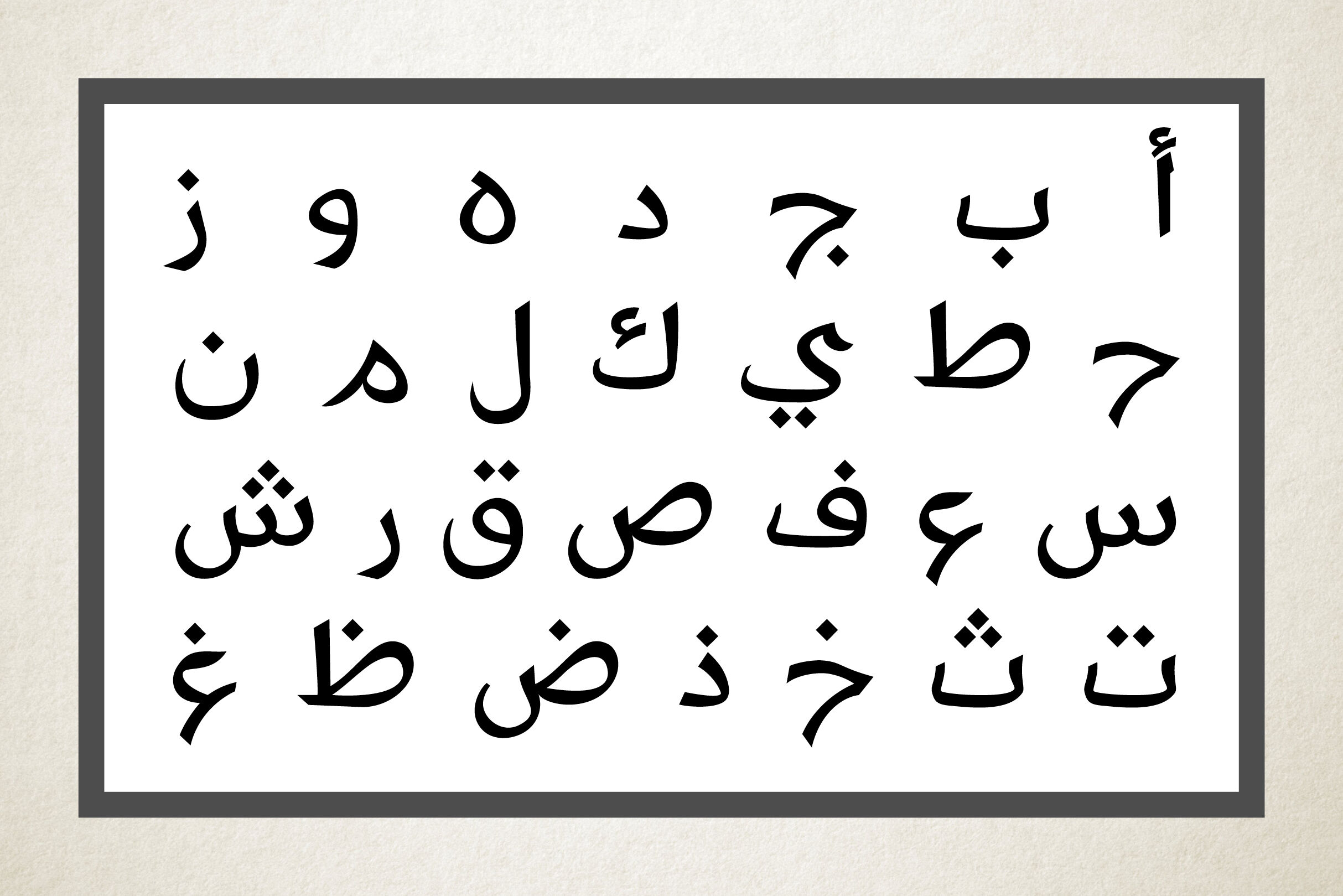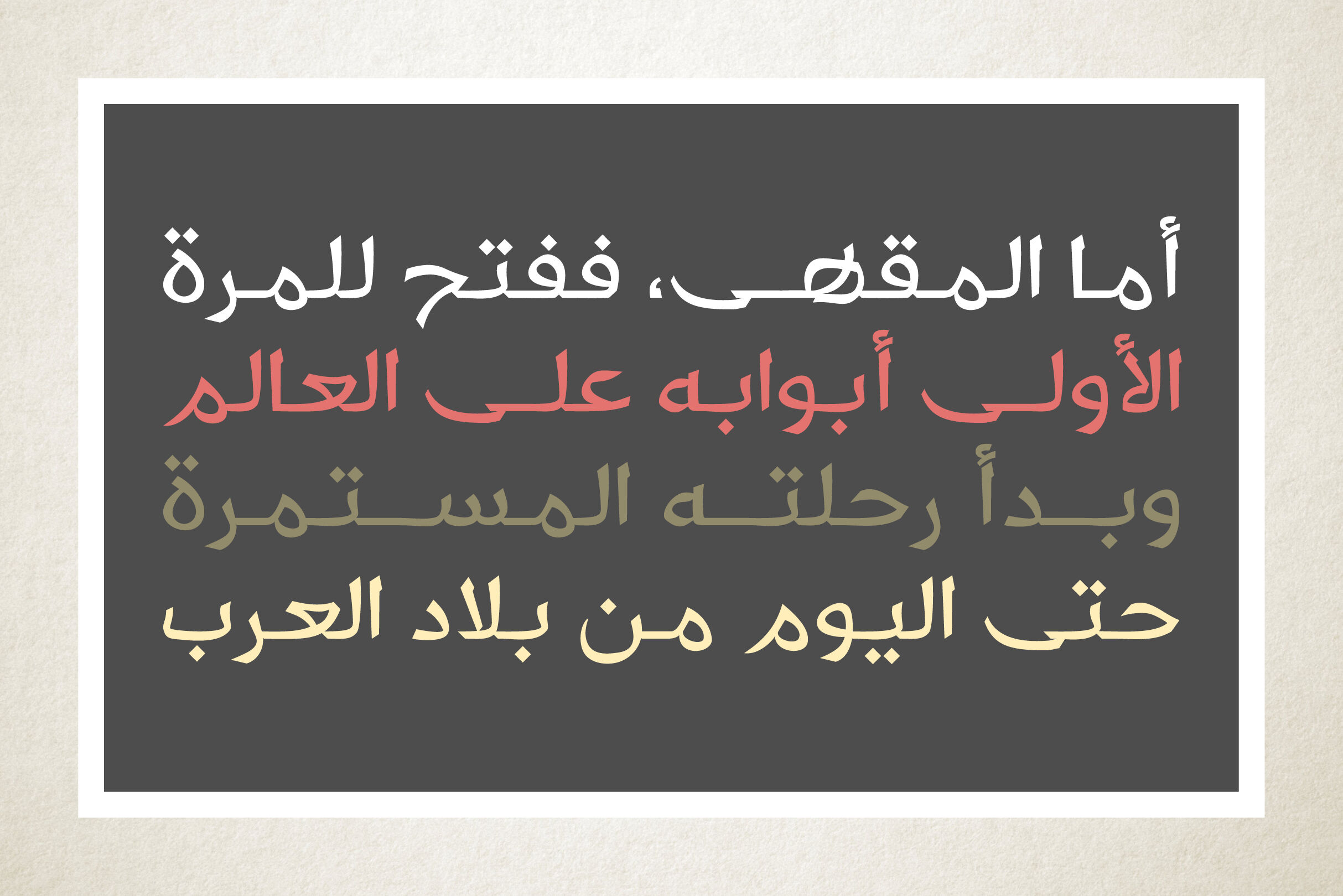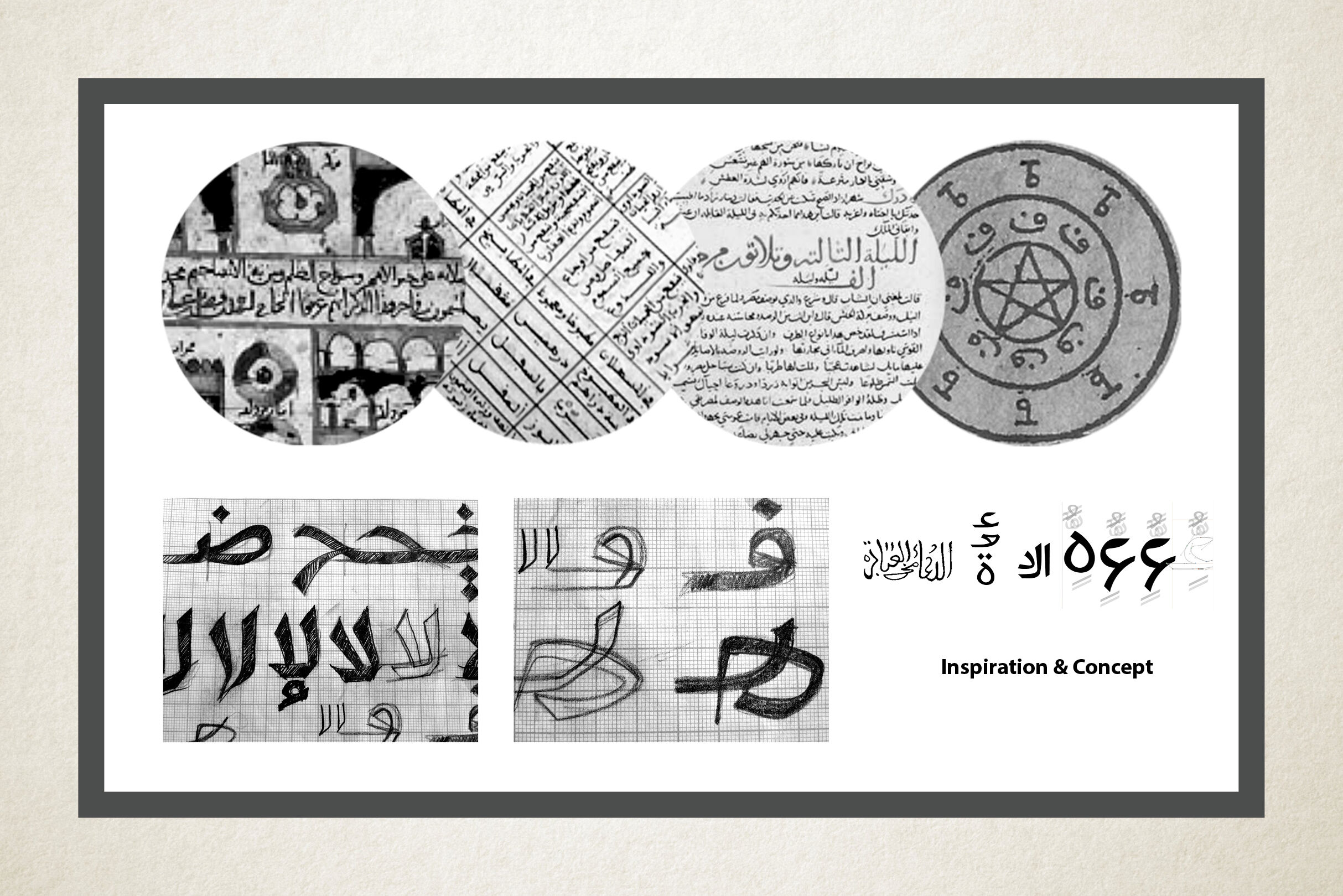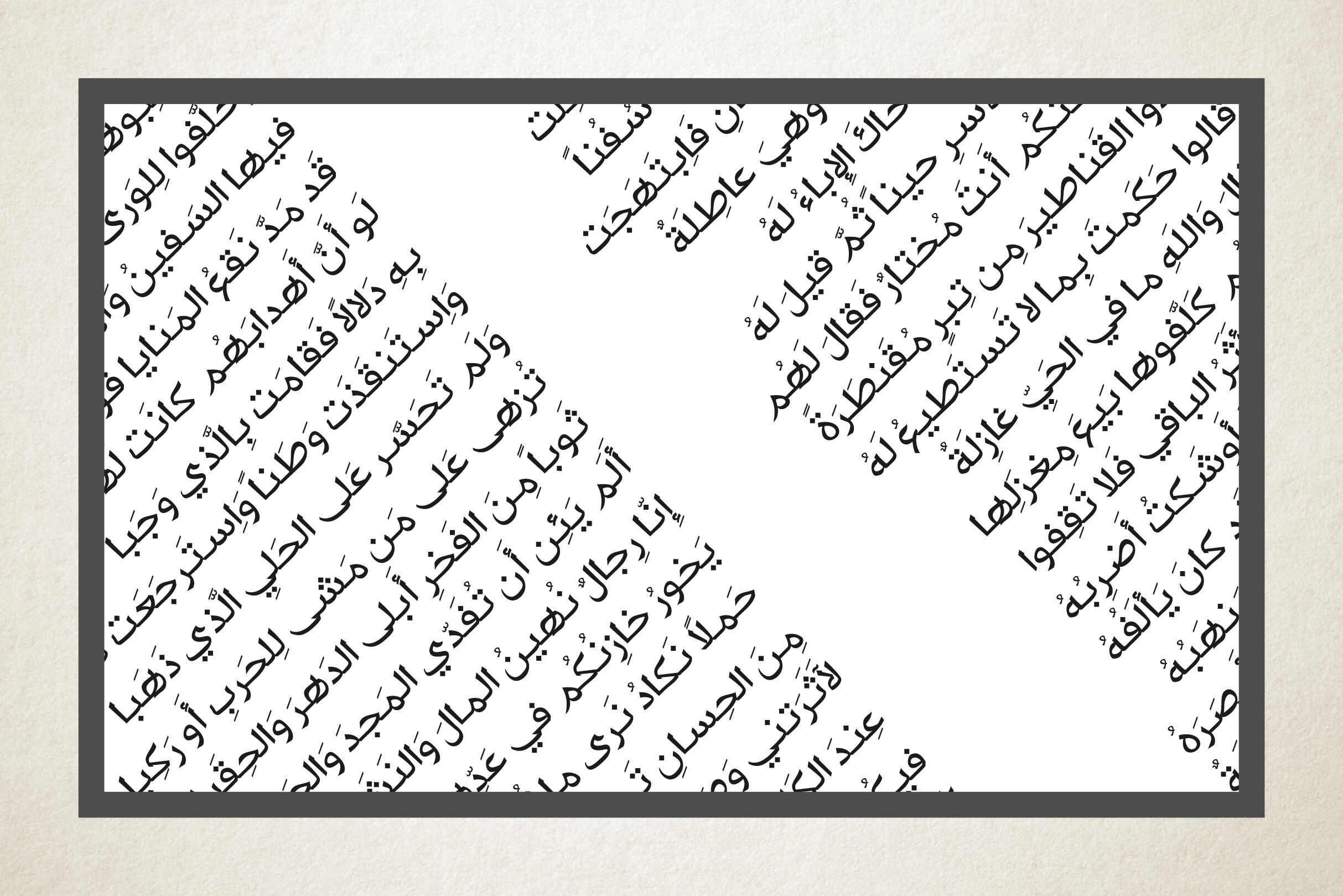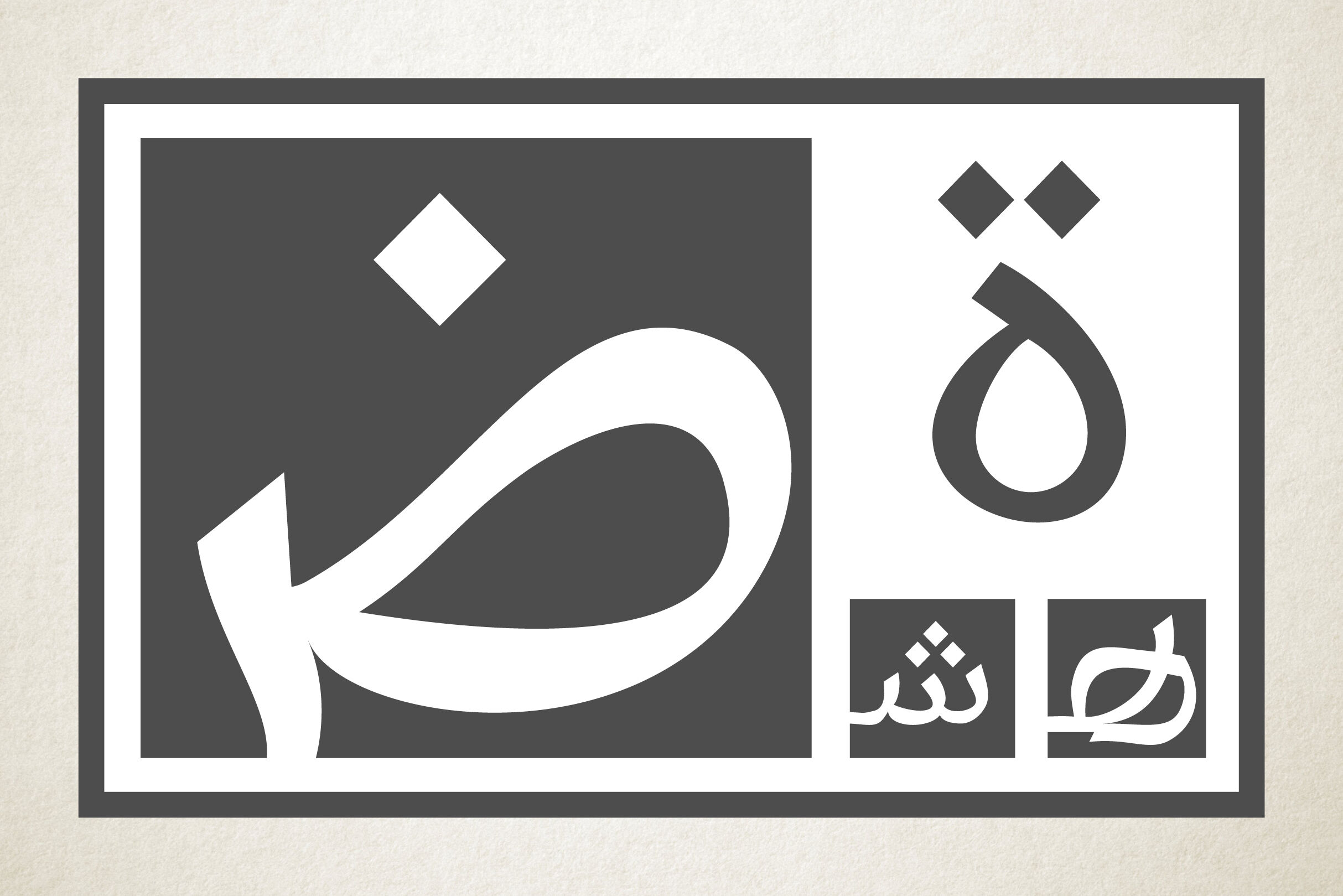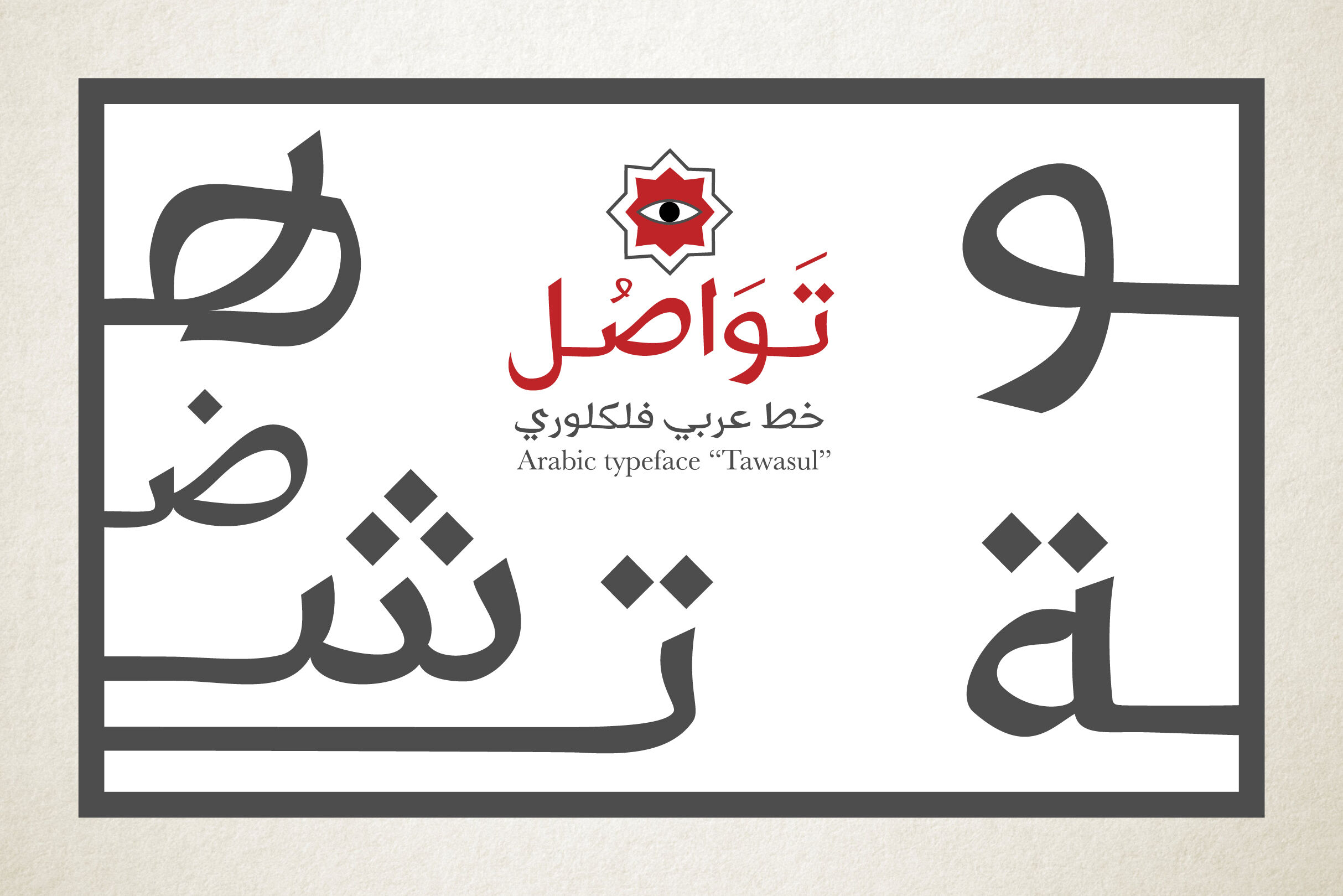
Tawasul - Arabic Font
Tawasul is an Arabic font that is inspired by Arabic folklore. The font simulates the unskillful writing styles on things like pilgrimage paintings and old Arabic manuscripts. The font is suitable for design projects which require an impression of authentic Arabic style including web and print.  *Please note that you will receive two different versions of Tawasul font (v.1.2 and v. 2.0)